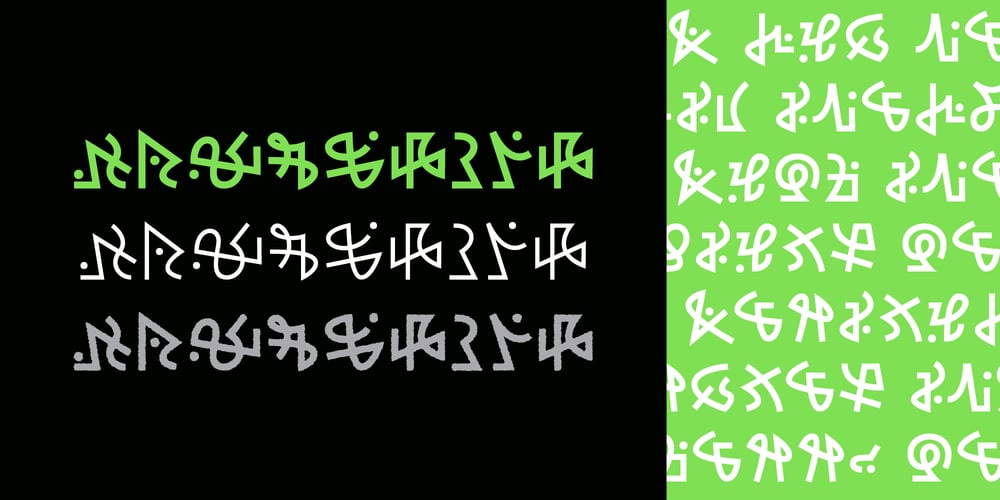
Kuzconian Font Family was designed by Thomas Ramey and published by Thomas Ramey Design. Kuzconian contains 5 styles and family package options. Kuzconian is a font that hails from the outer reaches of the cosmos, that defies earthly conventions with its symbols representing our ordinary letterforms. Its enigmatic symbols, reminiscent of an alien script or a long-lost language, replace our familiar letterforms bearing no resemblance to its matching traditional letterform. The font’s appearance is distinctly futuristic and otherworldly, making it a perfect choice for projects that seek to evoke mystery and cryptic messages from distant realms. Every symbol in Kuzconian is a work of art, capable of standing alone as a powerful graphic element. When combined, these symbols form a seamless and captivating visual language that transports viewers to a world that is foreign yet intriguingly familiar.In essence, Kuzconian is a font that embodies endless possibilities, capable of infusing a sense of the unknown and the fantastical into a wide array of design projects. Whether used in designs evoking galactic landscapes or in those inspired by mysterious archaeological finds, Kuzconian transcends the ordinary, embracing the extraordinary with each stroke of its alien glyphs.